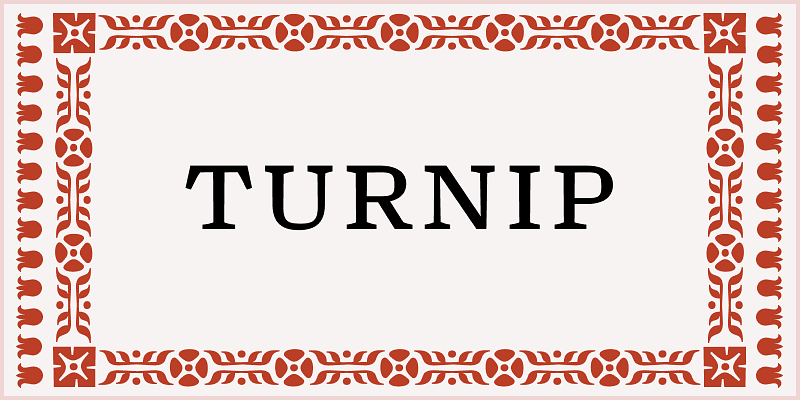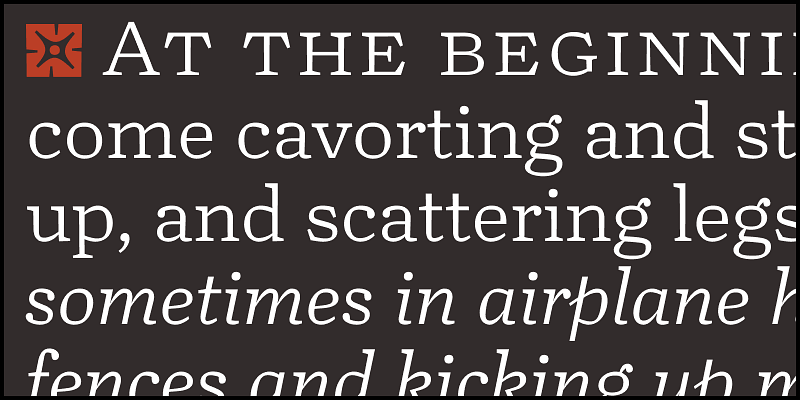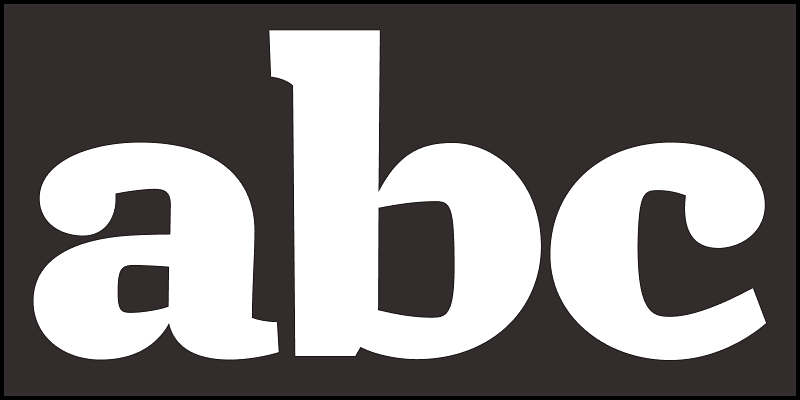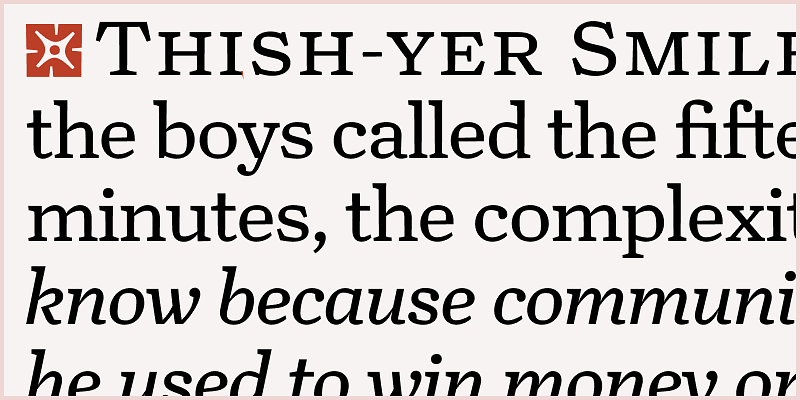
Where classic serif faces are urbane and well-mannered, Turnip is coarse and down-to-earth – the kind of type that feels completely at home with salty language. David Jonathan Ross crafted an energetic tension between Turnip’s inner and outer shapes to give it vigor, while strong strokes and sturdy serifs yield dense paragraphs with a horizontal emphasis. This ain’t your grandpa’s book face, but it reads just as well.